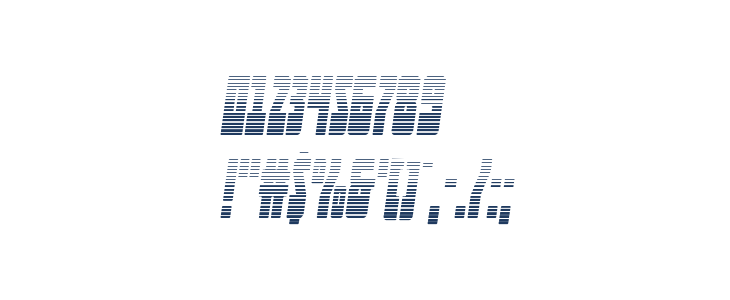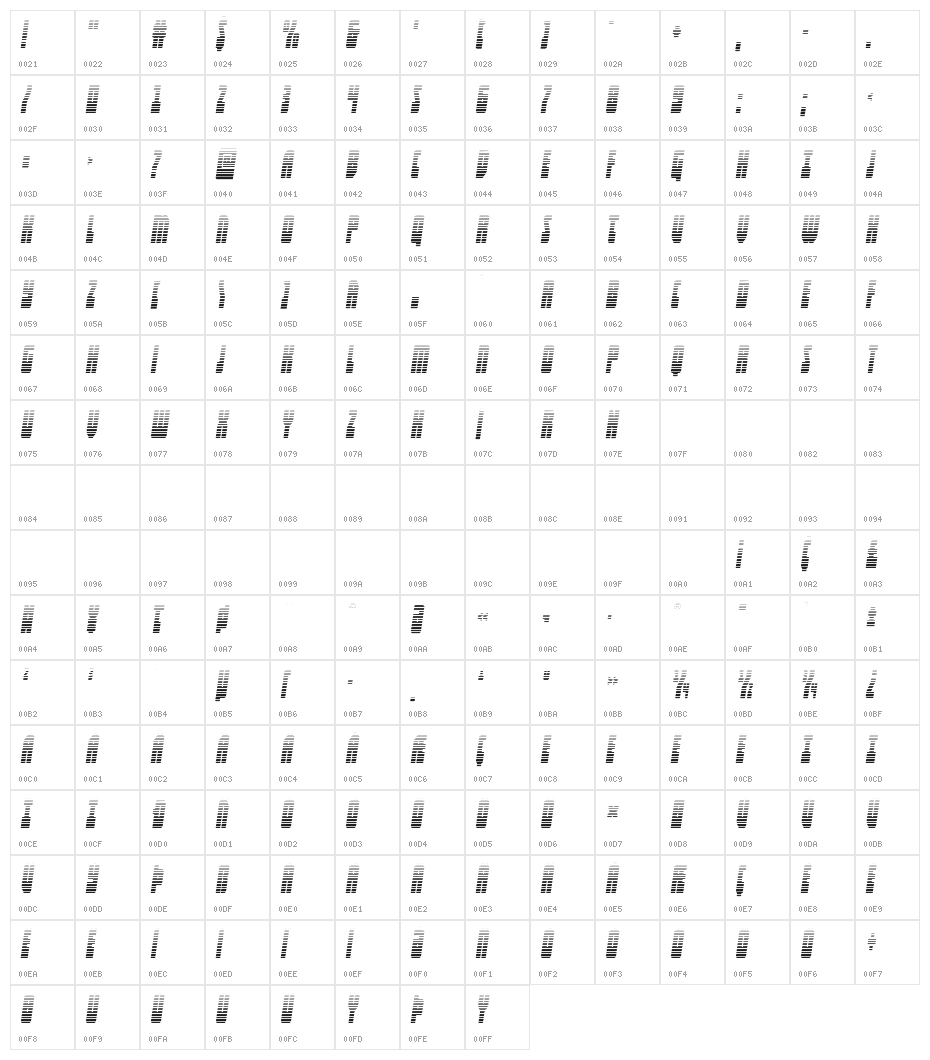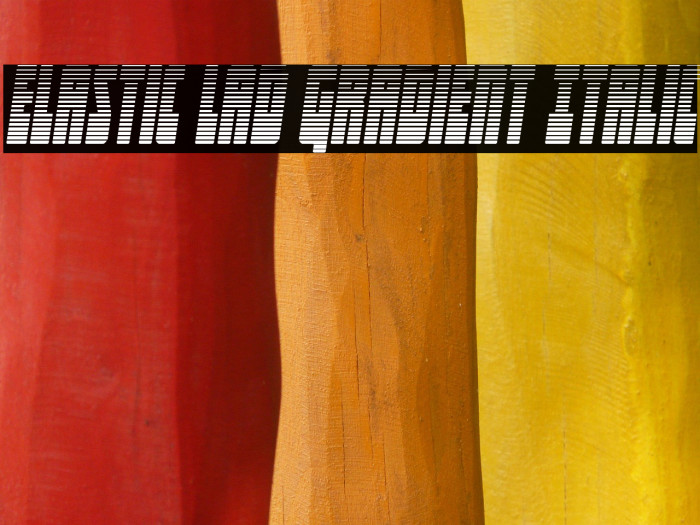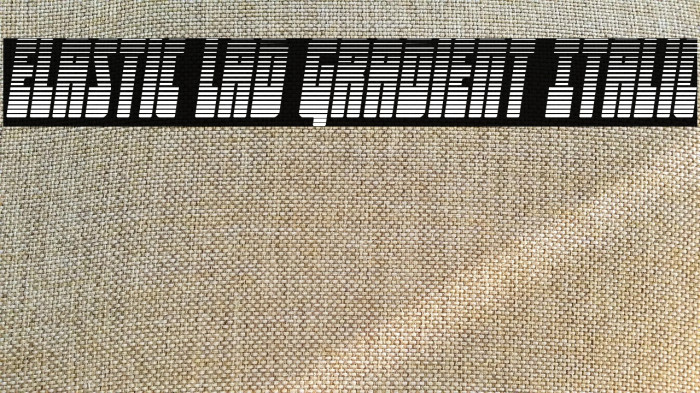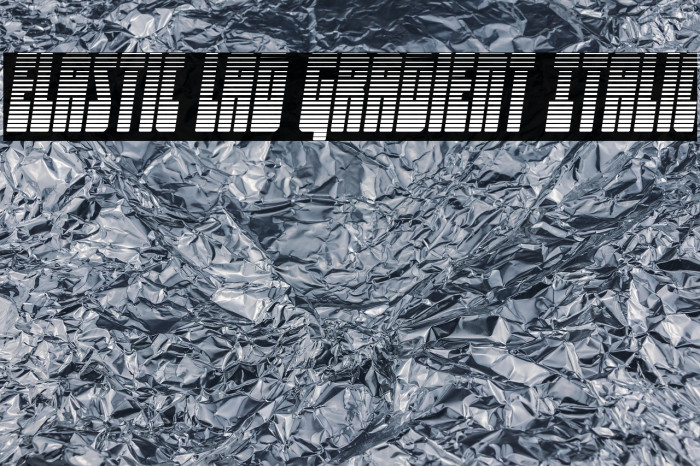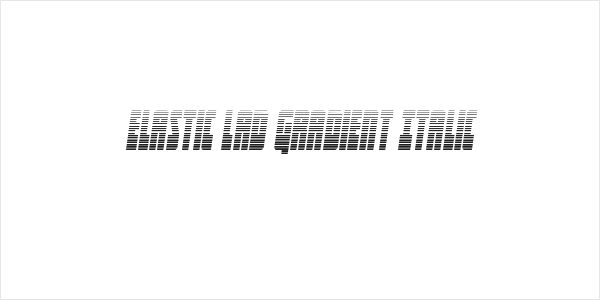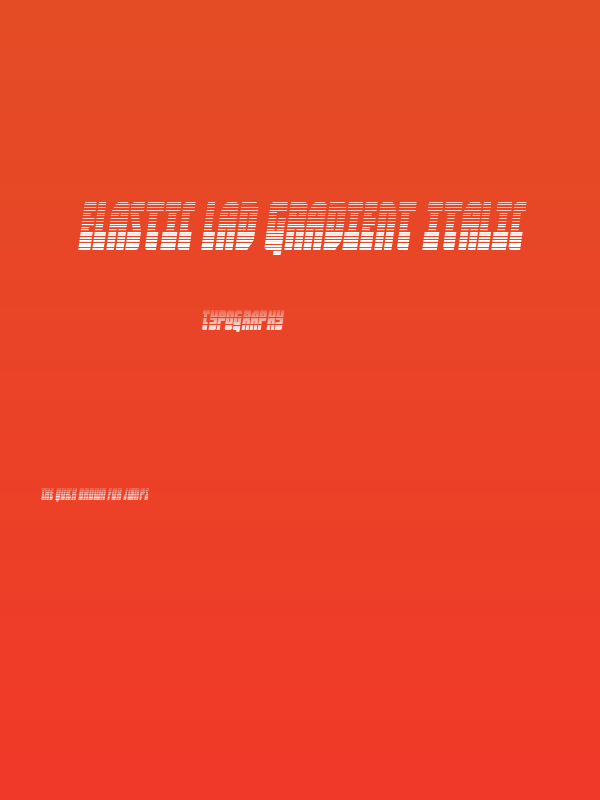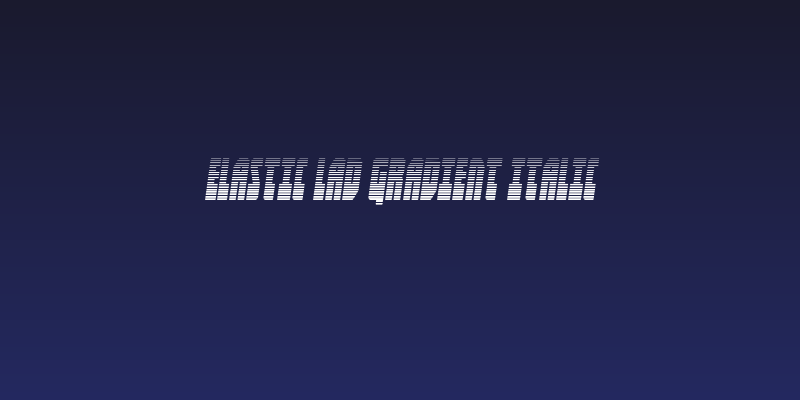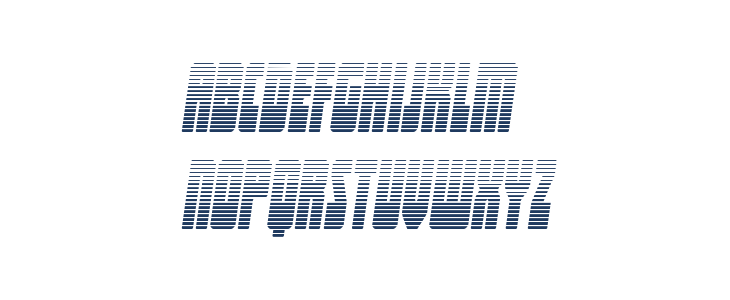
Elastic Lad Gradient Italic Font
Elastic Lad Gradient Italic Description
This font features a bold, dynamic design with a distinct gradient effect that gives each character a sense of movement and depth. The italicized style adds a forward-leaning energy, making it ideal for attention-grabbing headlines or modern branding projects. The characters are constructed with a series of horizontal lines that create a layered, three-dimensional look. This unique approach to typography makes it stand out in any design context. The font maintains a consistent width across all characters, ensuring a uniform appearance. Its bold weight and high contrast between the thick and thin lines enhance its visual impact.